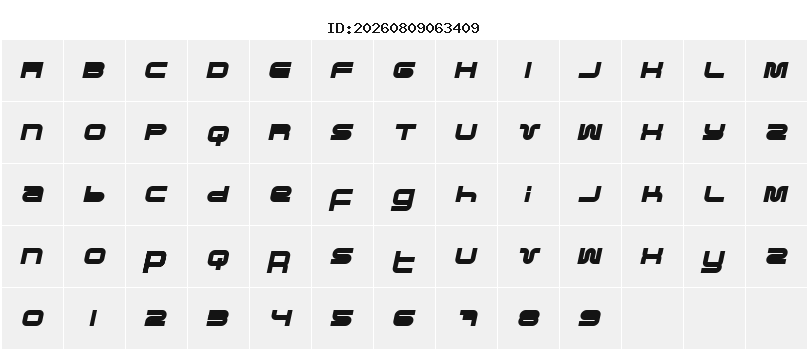
Pfuk Preview
• Font Name: Pfuk
• Font Style: BoldItalic
• Font ID: Macromedia Fontographer 4.1 Pfuk BoldItalic
• Full Font Name: Pfuk BoldItalic
• PostScript Name: PfukBoldItalic
• Character Count: 93
About Pfuk.ttf
Pfuk.ttf is a modern, elegant sans-serif font designed for ultimate readability and visual harmony. Perfect for branding, headlines, web design, and print materials.